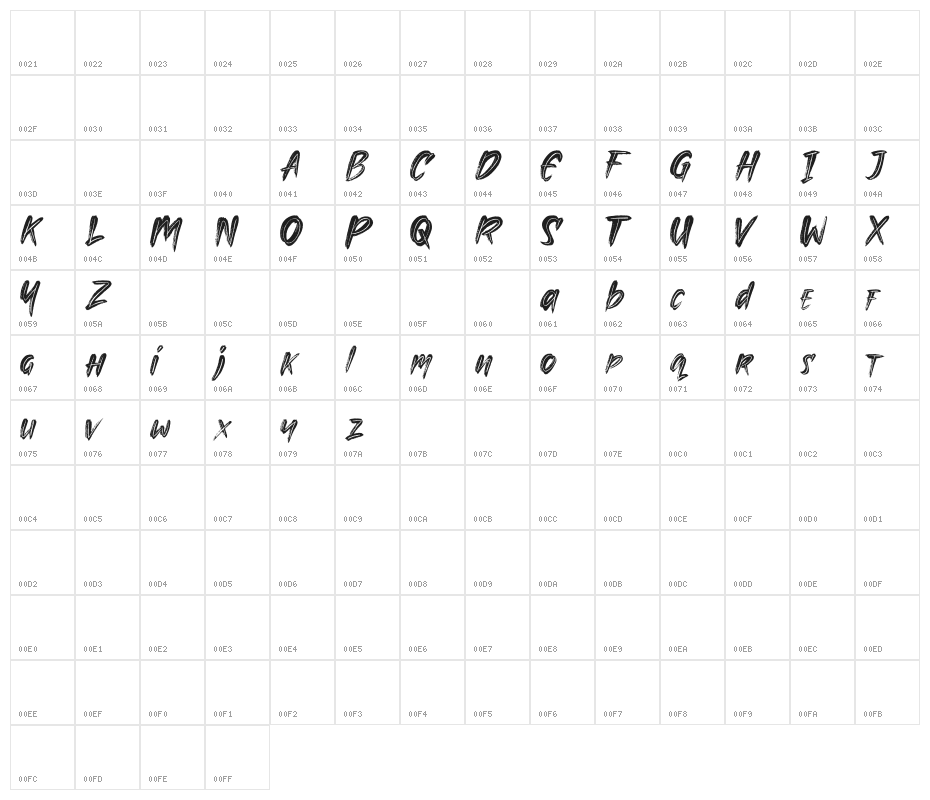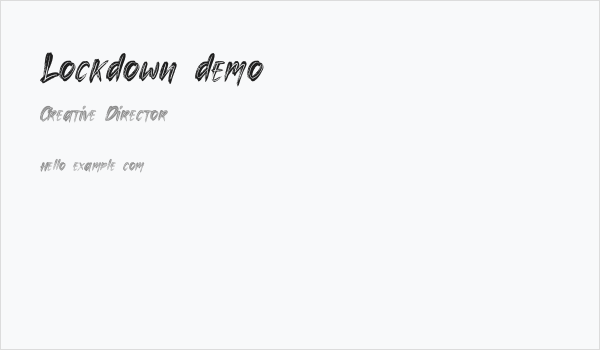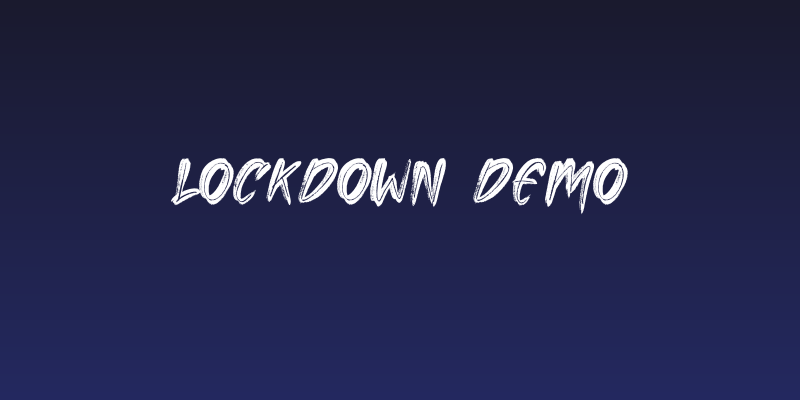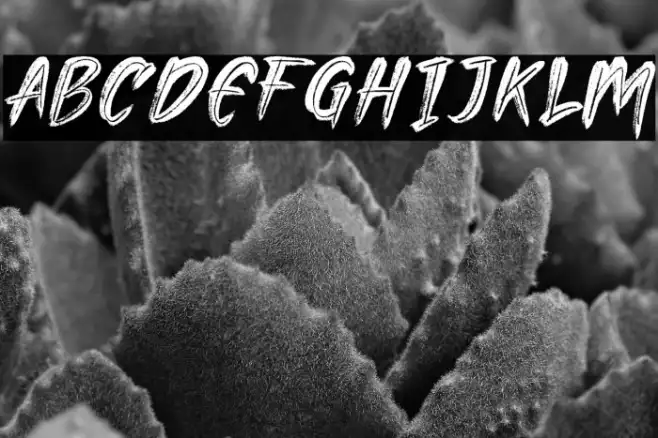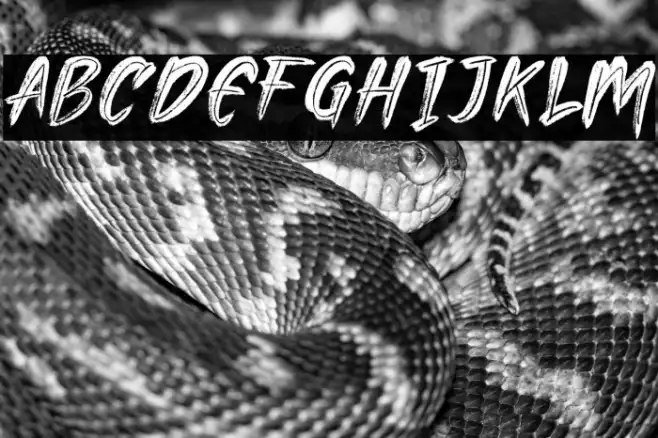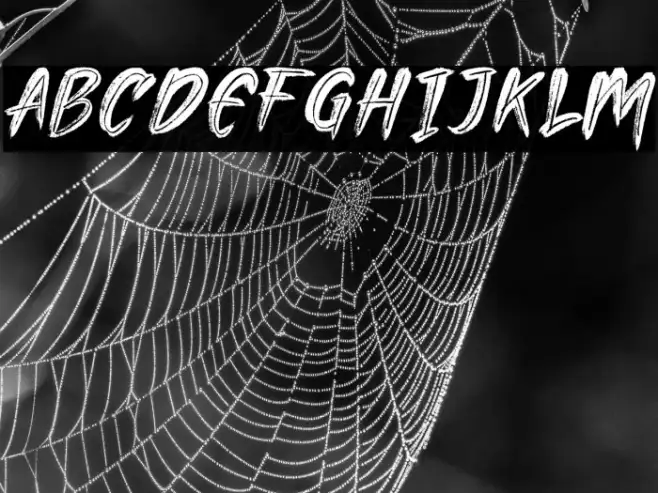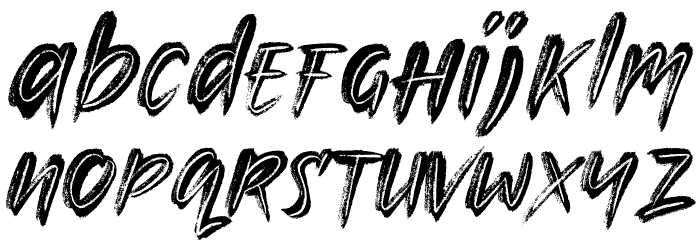
Lockdown demo Font
Lockdown demo Description
This font features a bold, brush-like style with a dynamic and energetic appearance. The strokes are uneven, giving it a hand-painted feel that adds a sense of movement and spontaneity. The letters are slightly slanted, enhancing the casual and informal vibe. The texture within each character mimics the effect of a dry brush, creating a rough and textured look. This font is highly legible despite its artistic flair, making it suitable for attention-grabbing headlines or creative projects.
| Overall Style | Modern, Artistic |
| Proposed Projects | Ideal for posters, branding, social media graphics, and any project requiring a bold, artistic touch. |